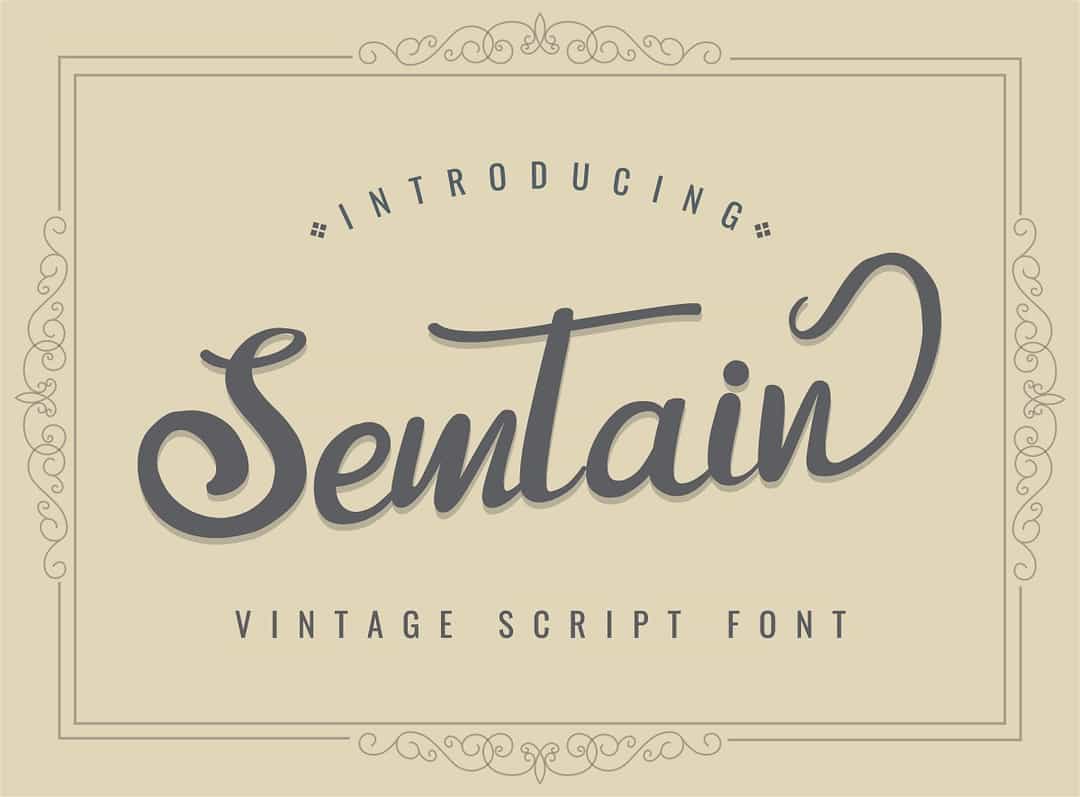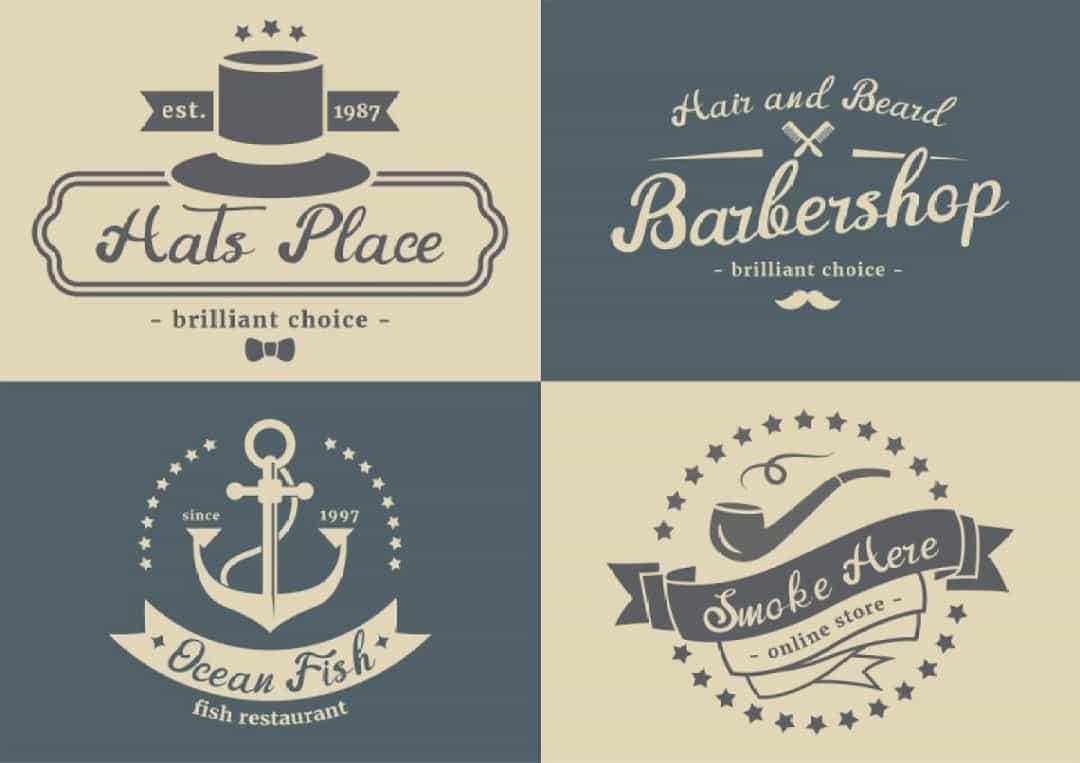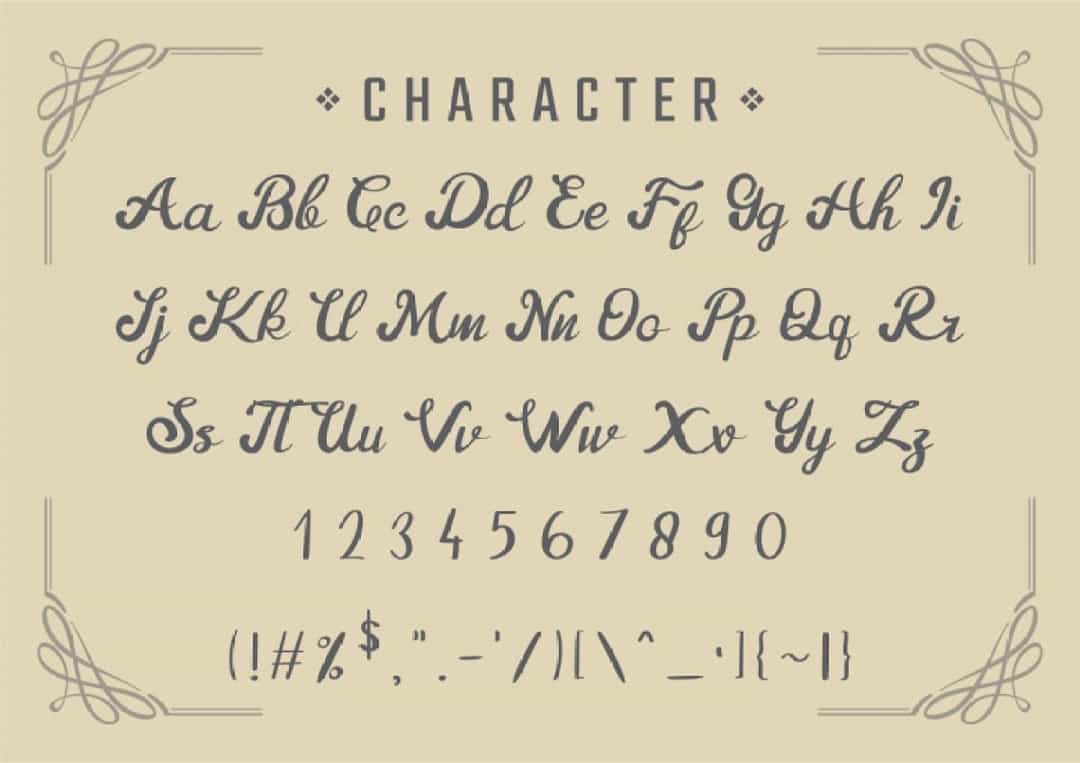
Semtain is an original and stylish classic script font. It looks exquisite on wedding invitations, thank-you cards, wedding greeting cards, logos and more – everything that requires its distinctive flair such as wedding invitations. Furthermore, its PUA encoding provides you with easy access to its lovely glyphs and swashes!